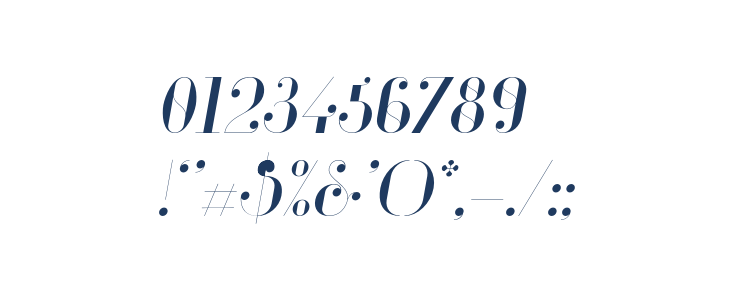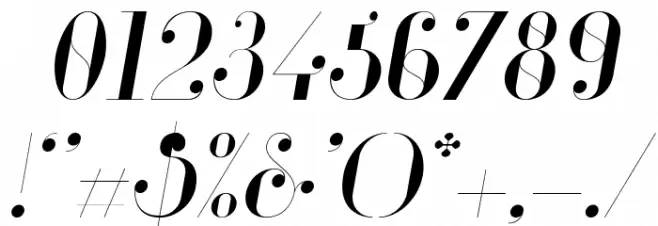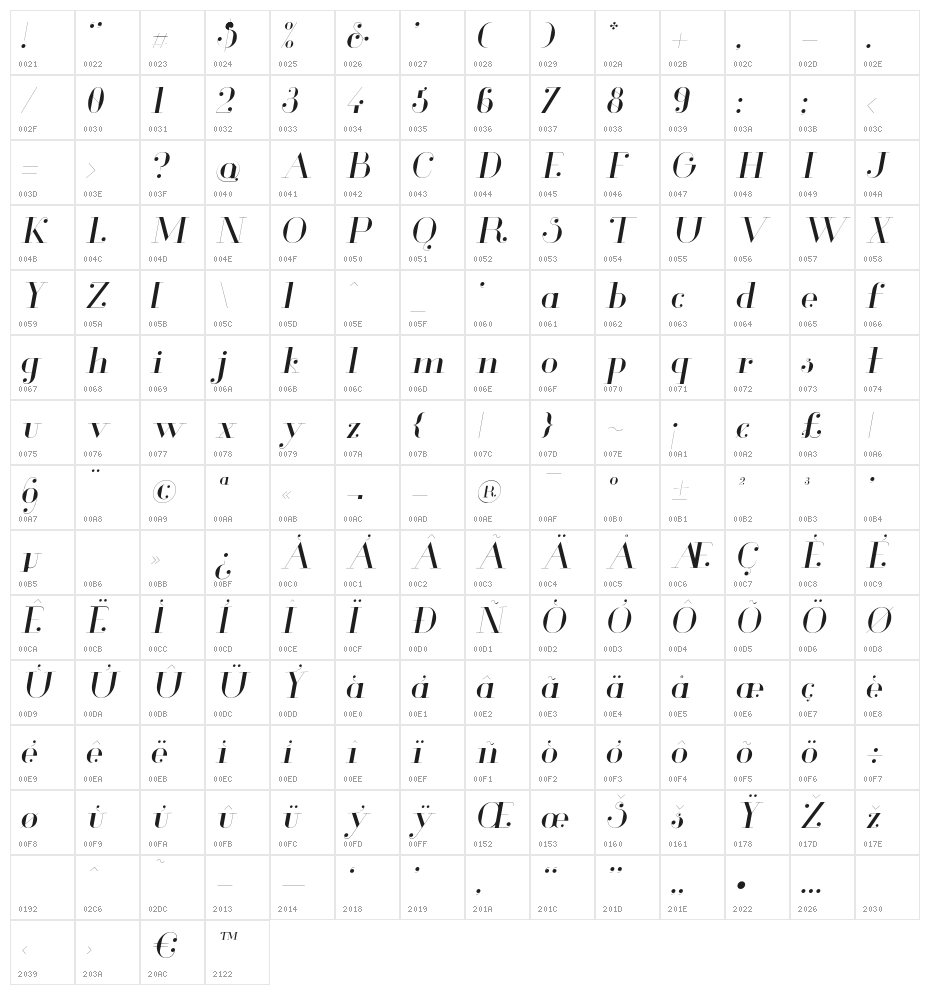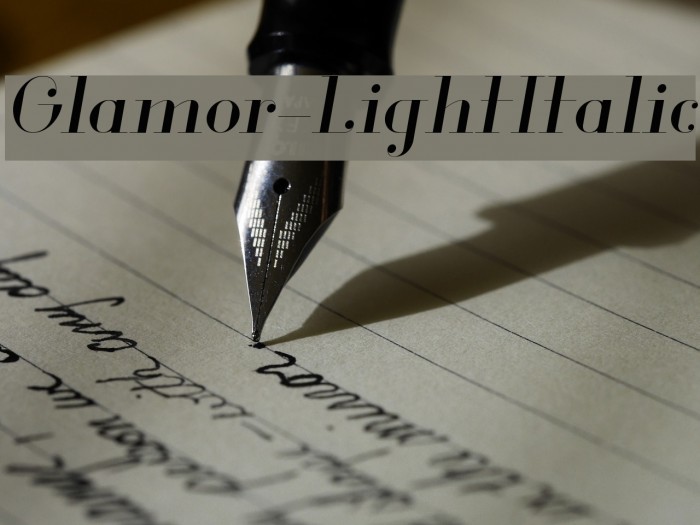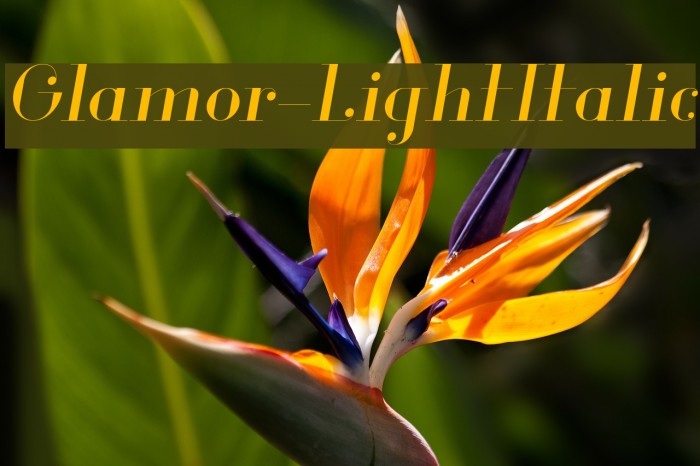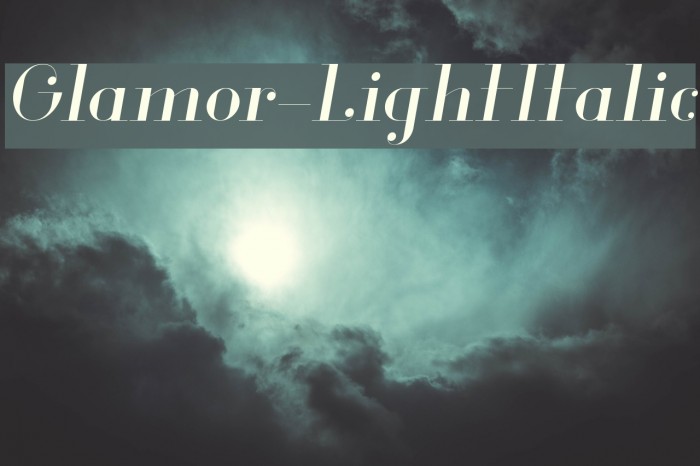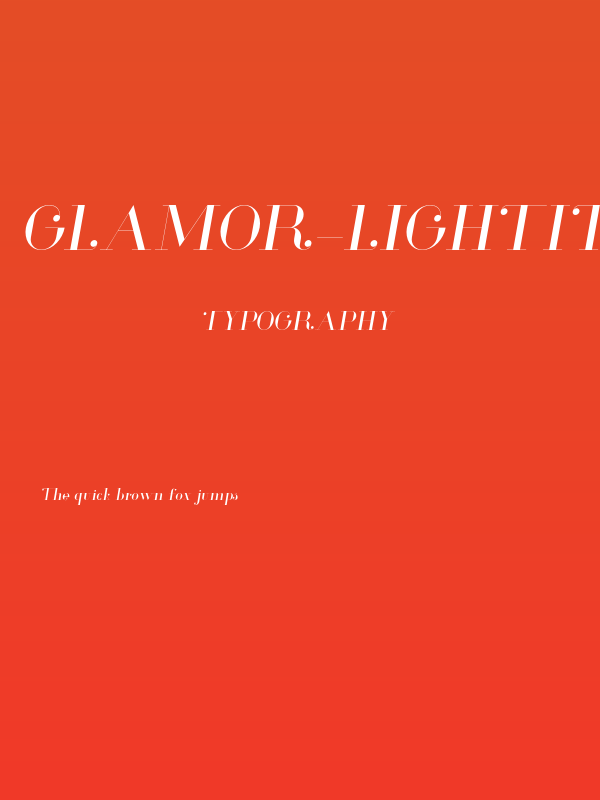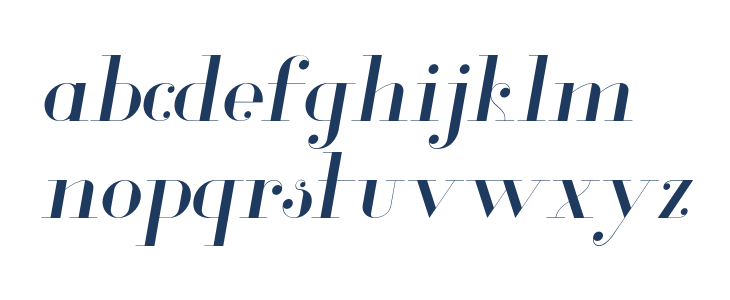
Glamor-LightItalic Font
Glamor-LightItalic Description
This elegant and sophisticated font features a light italic style with high contrast between thick and thin strokes, creating a refined and luxurious appearance. The characters are elongated with a slight slant, giving a sense of movement and grace. The uppercase letters are tall and slender, while the lowercase letters maintain a consistent flow, enhancing readability. The numerals and special characters are designed with the same attention to detail, ensuring a cohesive look across all text elements. The font's overall aesthetic is modern yet timeless, making it suitable for a variety of high-end design projects.
| Overall Style | Elegant and sophisticated |
| Proposed Projects | Ideal for luxury branding, fashion magazines, wedding invitations, and elegant editorial design. |